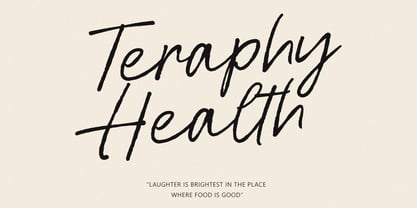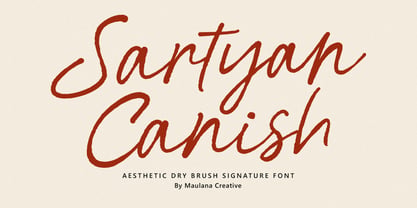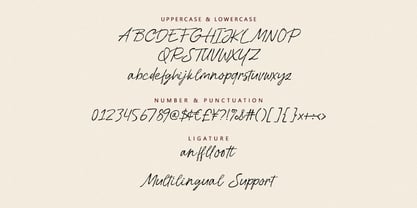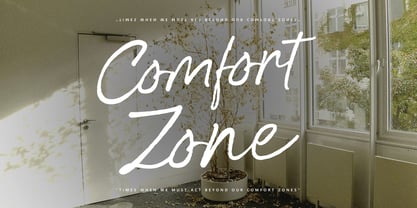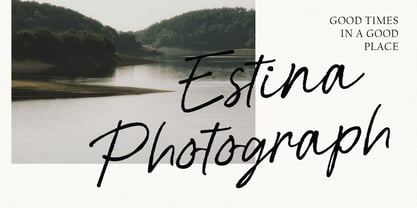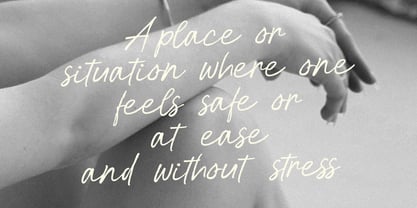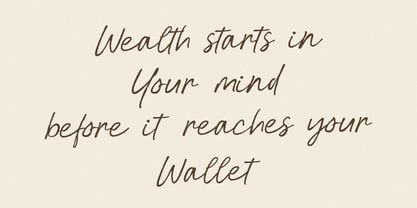
MC Sartyan Canish
by Maulana Creative
The MC Sartyan Canish Font Family was designed by Gilang Maulana and published by Maulana Creative. MC Sartyan Canish contains 1 styles.
Sartyan Canish is a sophisticated dry brush signature font that captures the authentic essence of hand painted lettering. Created by Maulana Creative, this font features a textured, natural stroke that adds a personal and artistic touch to any design. Its elegant yet raw aesthetic makes it perfect for branding, photography watermarks, lifestyle quotes, and stylish social media posts. With a full set of uppercase and lowercase letters, numbers, punctuations, and ligatures, Sartyan Canish offers a seamless, flowing look that mimics real handwriting with effortless grace.